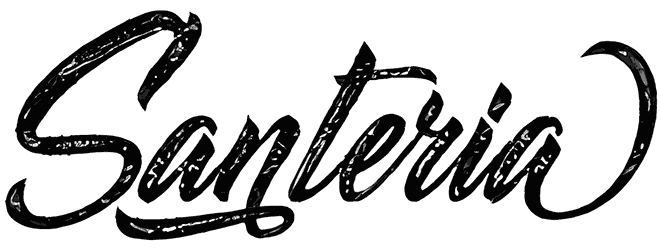
Santeria Font
A sense of vintage allure pervades the Santeria script font. This illegible baseball font has no numerical letters, but if you use this old-school font for any of your posters, greeting cards, or other similar items, you’ll be well ahead of the curve.